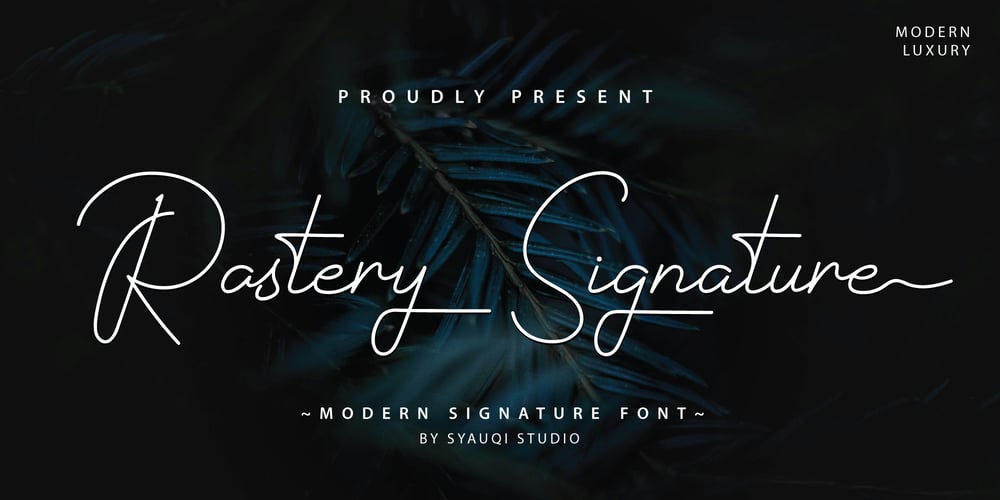
Rastery Signature Font Family was designed by Muhammad Asroful Umam and published by Syauqi Studio. Rastery Signature contains 1 styles and family package options. “Rastery Signature” font is a meticulously crafted piece of typography that embodies understated elegance and refinement. By combining uppercase beginnings and lowercase endings, this font offers a subtle but impactful way to customize your text. Its versatility makes it suitable for a range of design applications, from high-end invitations to sophisticated branding materials and beyond.Rastery Signature is very good to be used in:photography, watermark, social media posts, advertisements, logos & branding, invitation, product designs, label, stationery, wedding designs, product packaging, special events or anything that need handwriting taste.Features: Uppercase & Lowercase Number & Punctuation Stylistic Alternate & Swash Ligatures Multilingual Support To fully access the font’s features, we recommend using programs that support OpenType features. This will allow you to access glyphs directly on the same panel without copy/pasting each glyph. Additionally, the OpenType panel allows you to turn on standard ligatures, which can automatically change letters for available ligatures.